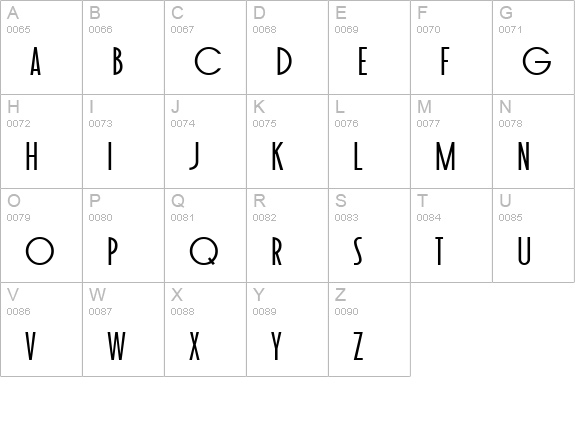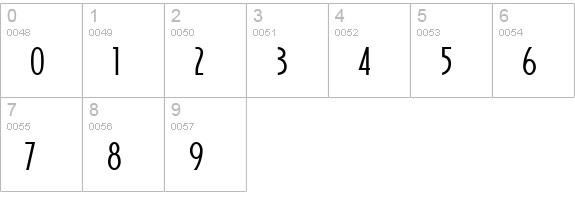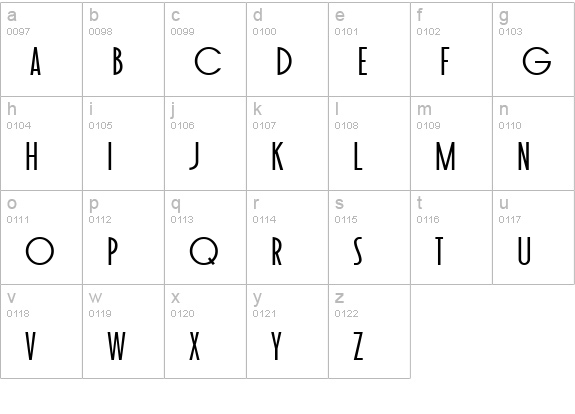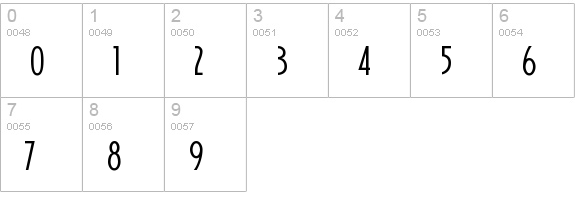
Toasted Vein BTN Font Details
Toasted Vein BTN font is an exquisite display typeface that exudes a sense of boldness and sophistication. Its unique design features crisp and toasted edges, giving it a distinctive and eye-catching appearance. This font is perfect for adding a touch of elegance and modernity to any project. The letters of Toasted Vein BTN font are meticulously crafted, with intricate details that make it stand out from the crowd. Each character boasts a fine balance between sharp corners and smooth curves, creating a harmonious and visually appealing composition. This font's strong presence makes it ideal for headlines, logos, branding, and any design that demands attention. But what sets Toasted Vein BTN font apart is not just its stunning aesthetics; it also offers a valuable advantage: it is completely free. Yes, you read that right! This incredible font is freely available to download at FontsMarket.com. You can now enhance your creative projects without worrying about breaking the bank or compromising on quality. Whether you're a professional designer, a student, or anyone with a passion for typography, Toasted Vein BTN font is a must-have addition to your font library. Its versatility allows it to work seamlessly across various design mediums, including print, web, and digital applications. With its wide range of weights and styles, you can easily find the perfect match for your project's requirements. Embrace the elegance and uniqueness of Toasted Vein BTN font and let your creativity soar. Download this exceptional font today at FontsMarket.com and unlock a world of possibilities for your designs. Enjoy the freedom of having a high-quality font at your fingertips, completely free of charge.